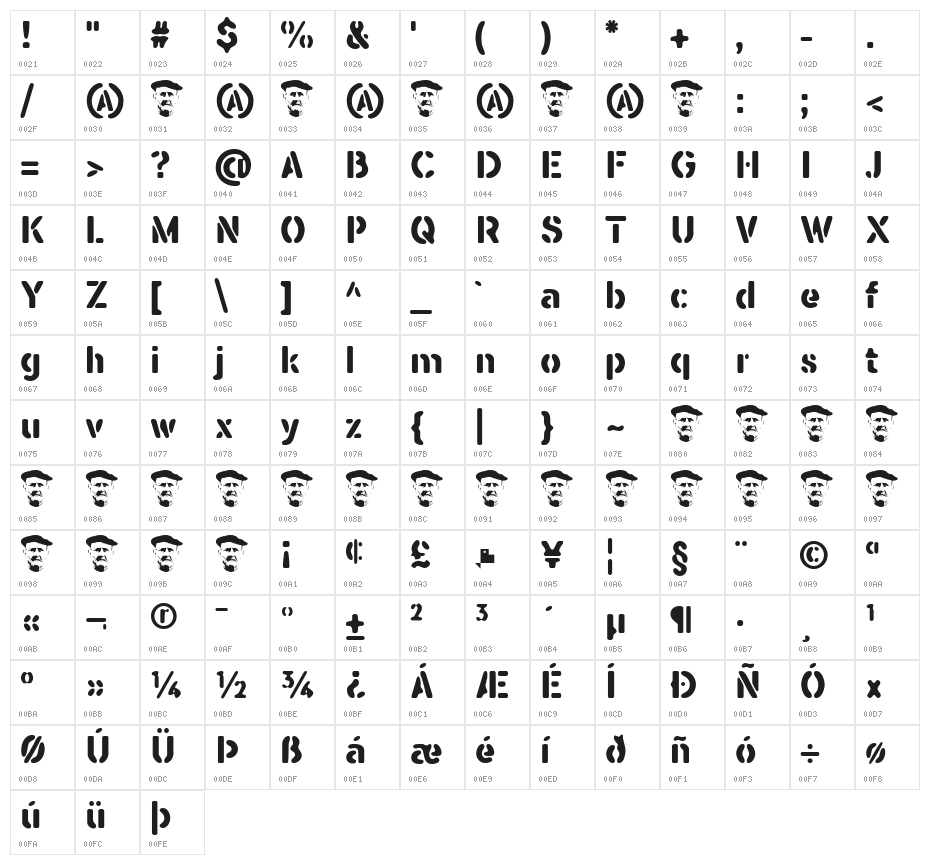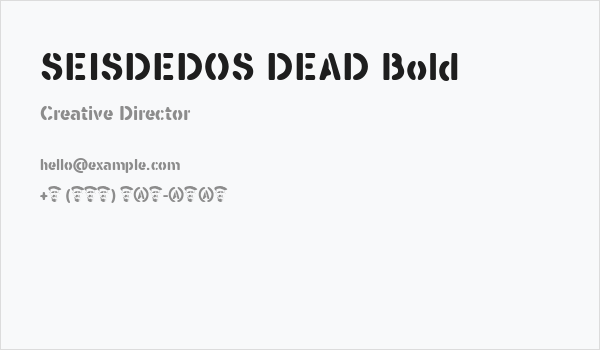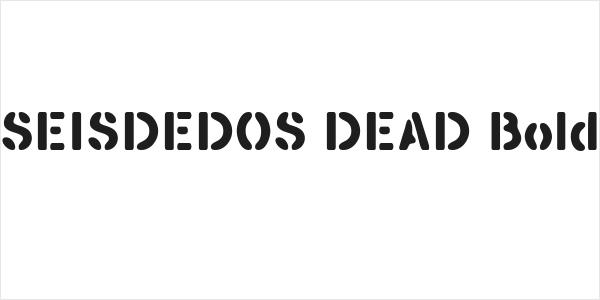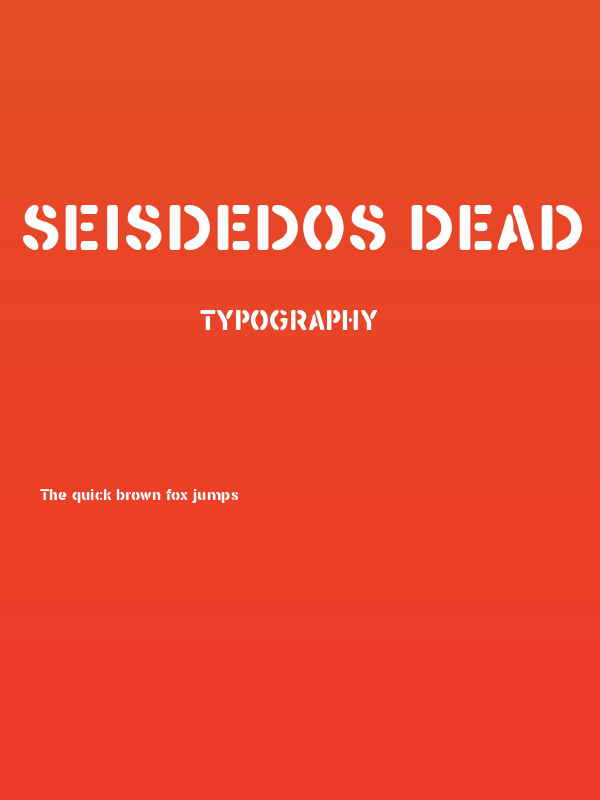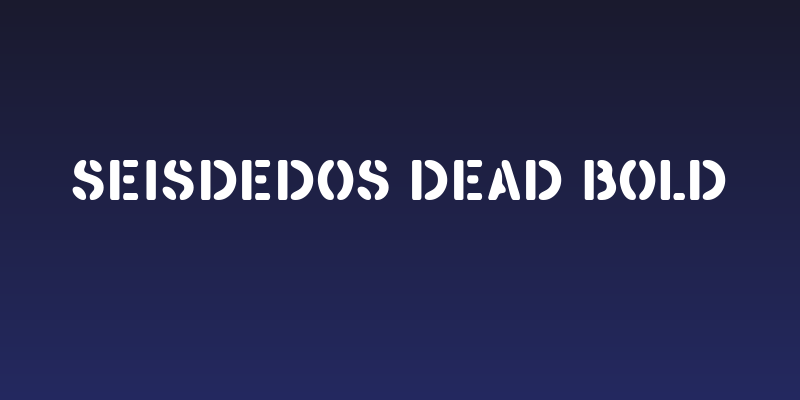
SEISDEDOS DEAD Bold Font
SEISDEDOS DEAD Bold Description
This font features a bold, stencil-like design with thick, uniform strokes and rounded edges. The characters are distinct and impactful, making them highly legible even from a distance. The uppercase and lowercase letters maintain a consistent style, with the uppercase letters exhibiting a strong presence. The font includes a variety of special characters, enhancing its versatility. Its unique cut-out style gives it a modern, industrial feel, suitable for eye-catching designs.
| Proposed Projects | Ideal for posters, branding, packaging, and any project requiring a bold, industrial look. |